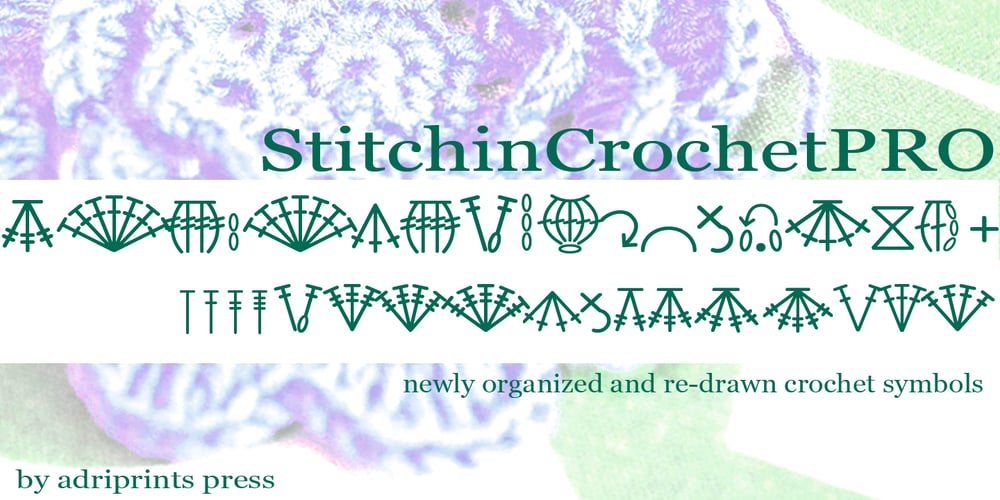
Stitchin Crochet Pro
Stitchin Crochet Pro font
Stitchin Crochet Pro Font Family was designed by Adriana E. Hernandez and published by Adriprints. Stitchin Crochet Pro contains 1 styles and family package options. StitchinCrochet Pro is the third font in the Stitchin Family following StitchinCrochet and StitchinKnit. Unable to find a stylish and easy-to-use crochet symbol font, I decided to make one! StitchinCrochet offers incredibly legible, intuitive symbols that are easily accessible without special numerical codes on the keyboard. StitchinCrochet Pro has updated crochet symbols (compared to StitchinCrochet) and are newly re-drawn, scaled, and have corresponding increase and decrease symbols ranging from single crochet to double treble crochet. StitchinCrochet Pro also includes an updated QWERTY keyboard key, better symbol layout, and symbol guide for both U.S. and U.K. crochet terminology! Choose the “manual install” method to access the .PDF guides and symbol guides.